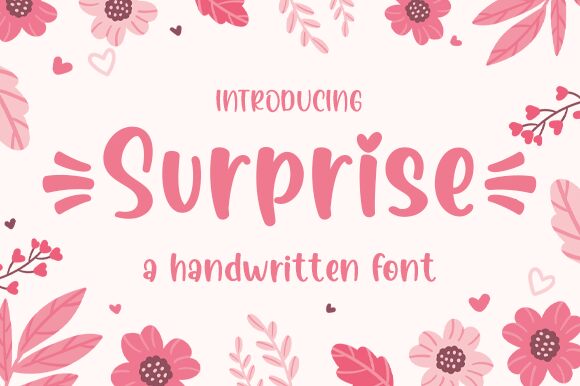
Surprise
Looking for a bold, handwritten font that adds a touch of surprise to your next project? Look no further than Surprise, designed by Aldi Raya Pradipta. With its playful curves and dynamic strokes, this font is perfect for everything from children's book covers to event invitations. Whether you're creating a whimsical logo or crafting eye-catching social media graphics, Surprise is sure to catch the eye and leave a lasting impression. So don't settle for ordinary when you can add an element of Surprise to your design work today!